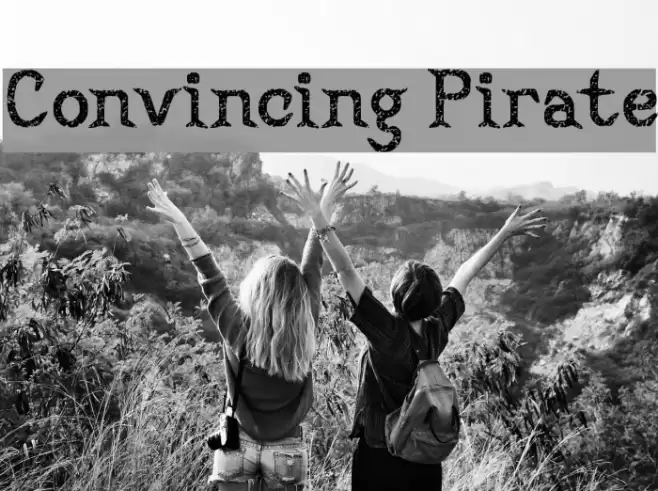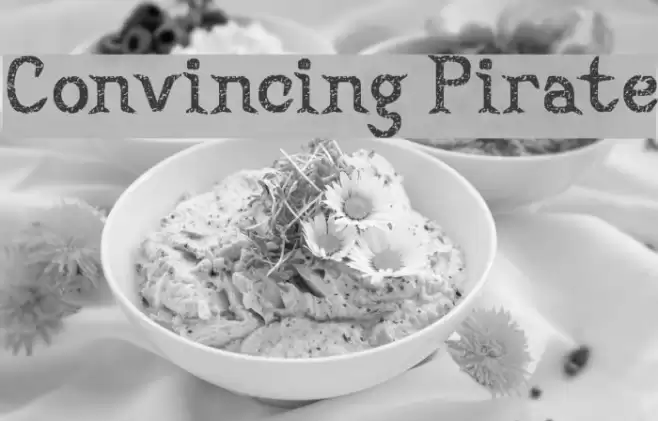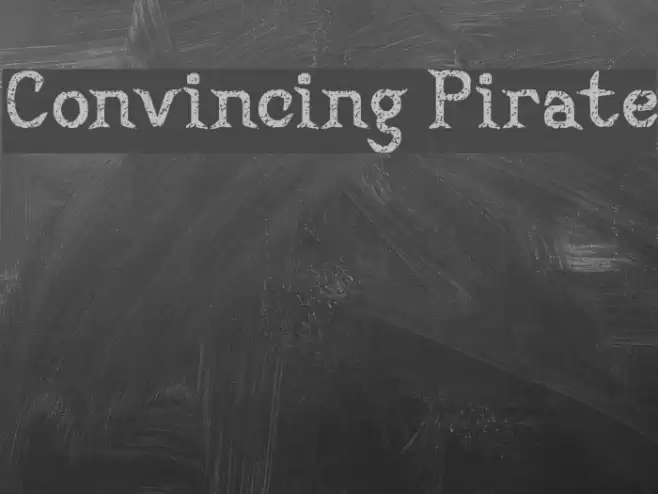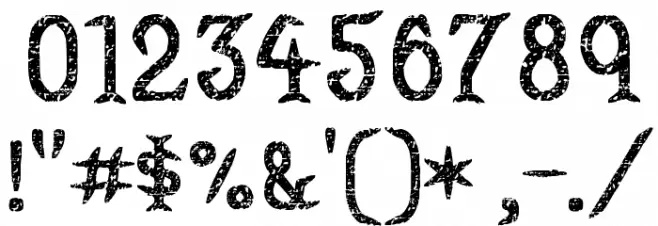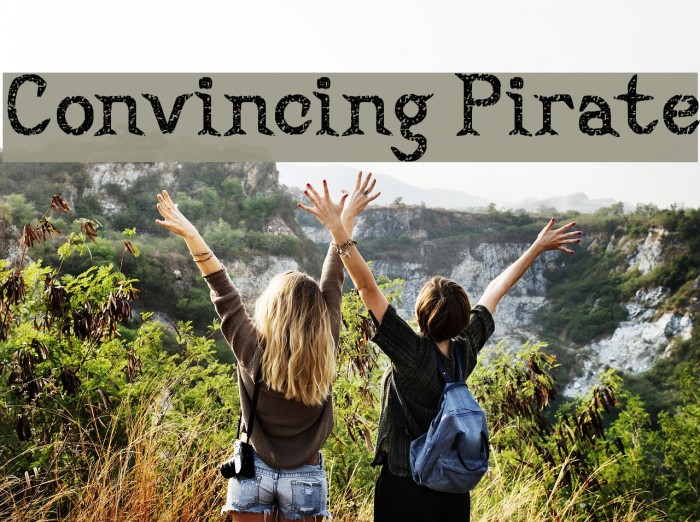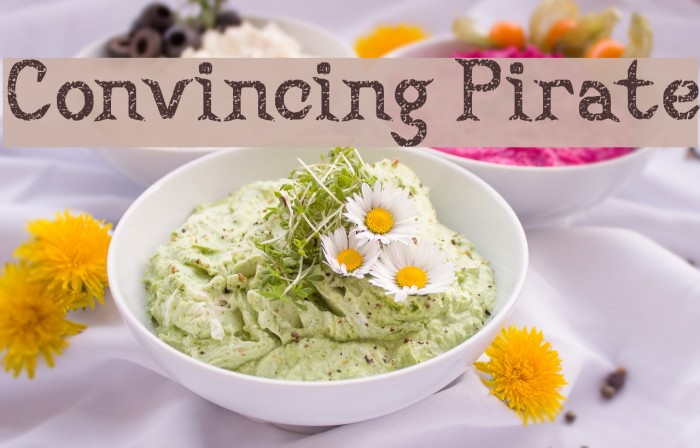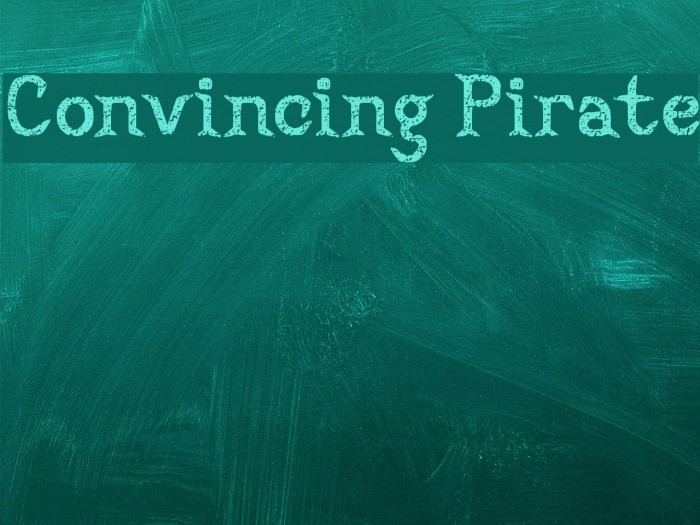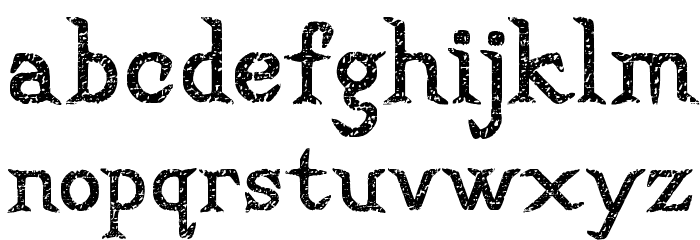
Convincing Pirate Font
Convincing Pirate Description
This font features a rugged, distressed appearance reminiscent of weathered pirate maps or ancient manuscripts. The characters are bold with a textured, worn-out look that adds a sense of history and adventure. The uppercase letters are strong and commanding, while the lowercase letters maintain a consistent style with slightly more curves. Numbers and special characters follow the same distressed pattern, ensuring a cohesive look across all text. The font's unique style makes it ideal for projects that require a touch of mystery or an old-world charm.
A bold, distressed font with a rugged, pirate-inspired aesthetic from Distorted Eroded fonts.
- Proposed Projects: Ideal for pirate-themed events, escape room branding, historical fiction book covers, or adventure-themed posters.
- Overall Style: Vintage